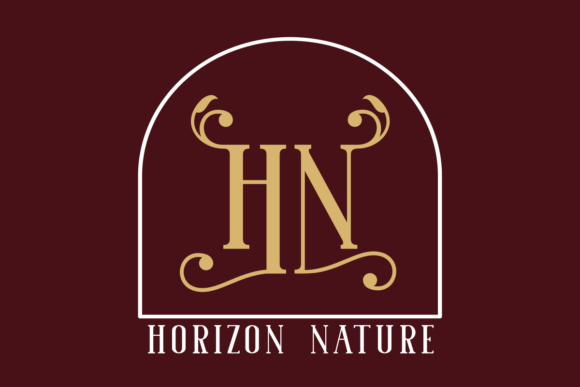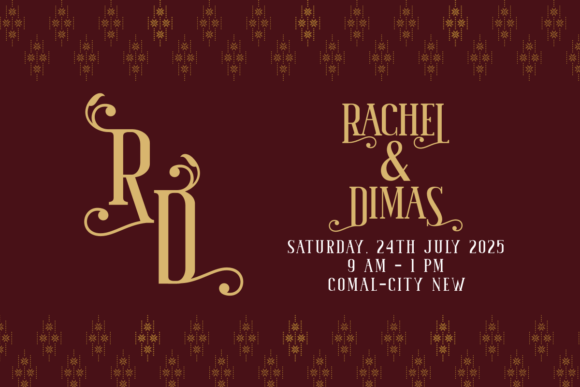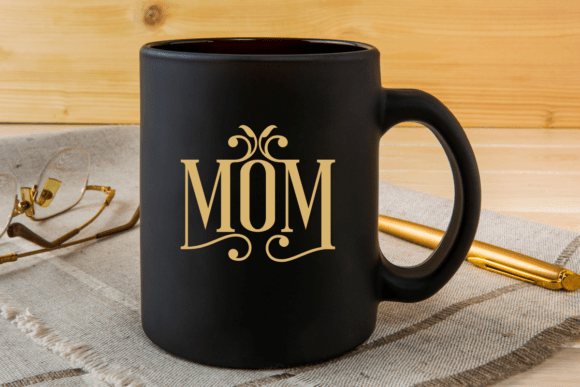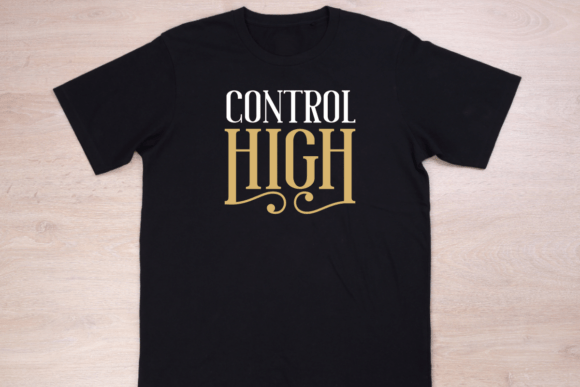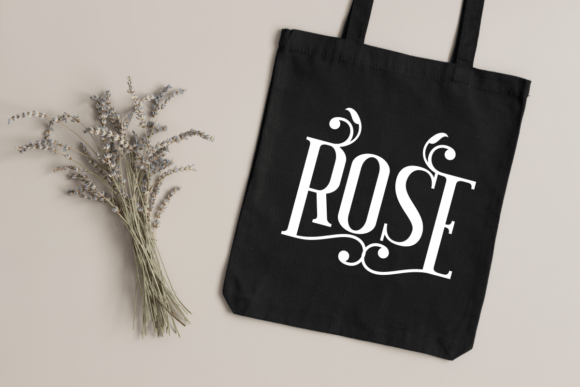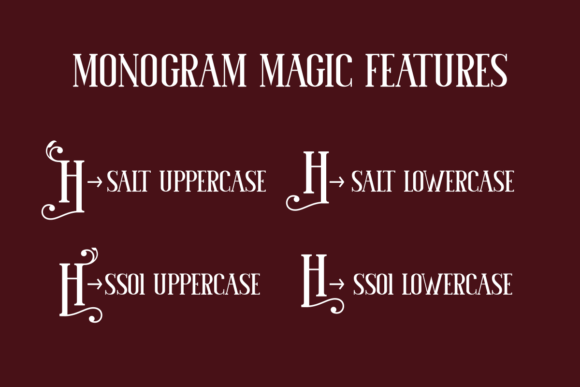
Introduction to Monogrammagic Italic Font
As designers, we’ve all been there – staring at a blank page, searching for the perfect font to elevate our project from good to great. For me, it’s the moment when all the design elements come together, and I know I’ve found the magic. And that’s exactly what Monogrammagic Italic Font is – a touch of magic that adds a luxurious, vintage feel to any project.
With its elegant swirl style and ornate details, Monogrammagic Italic Font is the perfect design resource for any creative project. Whether you’re working on a wedding invitation, a greeting card, or a premium packaging design, this font is sure to add a timeless and stylish touch. And with its PUA-encoded features, accessing all glyphs, swashes, and alternate characters is a breeze, making it a high-quality design resource that’s a must-have for any designer.
Key Features of Monogrammagic Italic Font
- Features a transparent background, allowing for seamless integration with any design element.
- Designed with precision and care, this font boasts a high resolution of 300 DPI, ensuring crisp and clear typography.
- Perfect for designers seeking a sophisticated and stylish font to elevate their creative project, whether it’s a logo, branding, or advertising campaign.
Honest Review: Monogrammagic Italic Font
I recently stumbled upon the Monogrammagic Italic Font and was excited to give it a try. As a designer, I’m always on the lookout for unique and high-quality fonts that can elevate my creative projects.
One of the standout features of the Monogrammagic Italic Font is its sleek and elegant design. The font is perfect for anyone looking to add a touch of sophistication to their work. I particularly enjoyed using it for a recent branding project, where it helped to create a cohesive and professional look.
However, there are a few limitations to keep in mind: ⚠️
- Limited character set, which may not be suitable for longer texts
- Not ideal for use on low-resolution screens
Overall, I’m impressed with the Monogrammagic Italic Font. While it may not be perfect for every project, it’s a great addition to any designer’s toolkit. I’d definitely recommend giving it a try for your next creative project!
Tips for Getting the Most Out of Monogrammagic Italic Font
To get the most out of the Monogrammagic Italic Font, consider the following tips: Use a transparent background to create a clean and minimalist design. Experiment with different font sizes and colors to create visual interest. Use the font in conjunction with other design resources to create a cohesive and high-quality design.
The Monogrammagic Italic Font is a versatile design resource that can be used in a variety of creative projects. Some common use cases include: wedding invitations, branding materials, social media graphics, and educational materials. With its unique and elegant design, the Monogrammagic Italic Font is sure to add a touch of sophistication to any project.